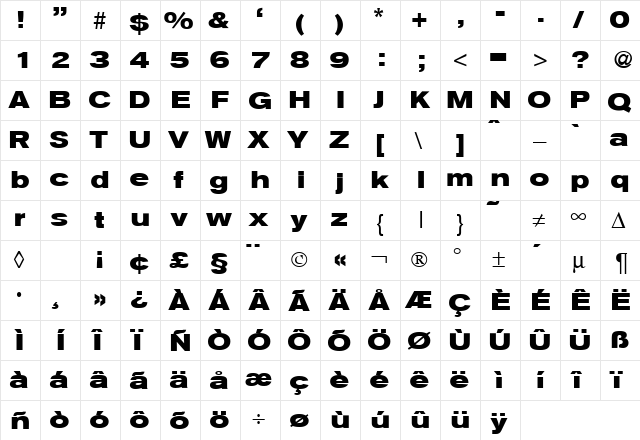
AkzentExtended Bold
Design Context for AkzentExtended Typeface
AkzentExtended offers clean, dependable letterforms without strong stylistic allegiance, making it a practical choice for designers who need flexibility. The heavy weight commands attention and anchors typographic hierarchies.